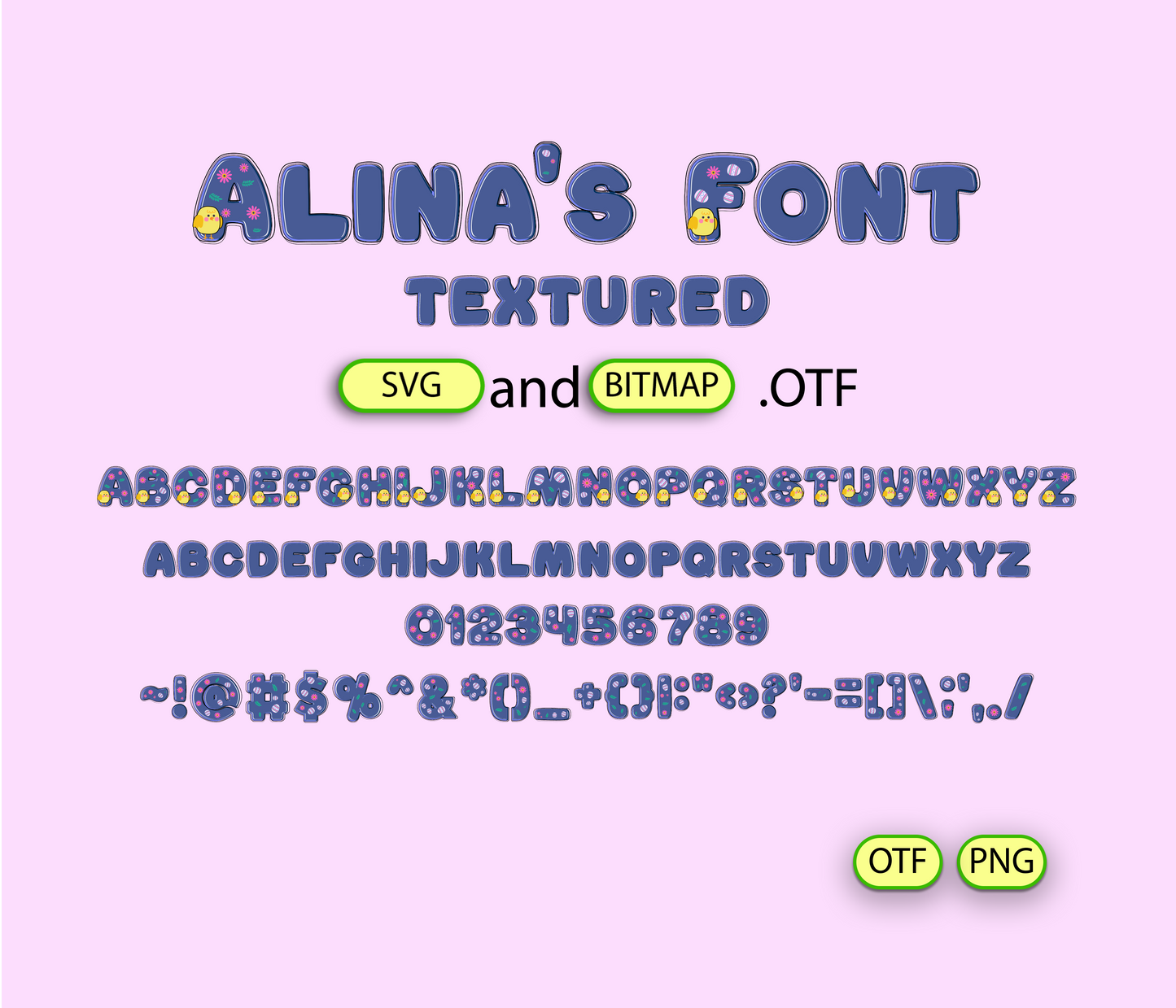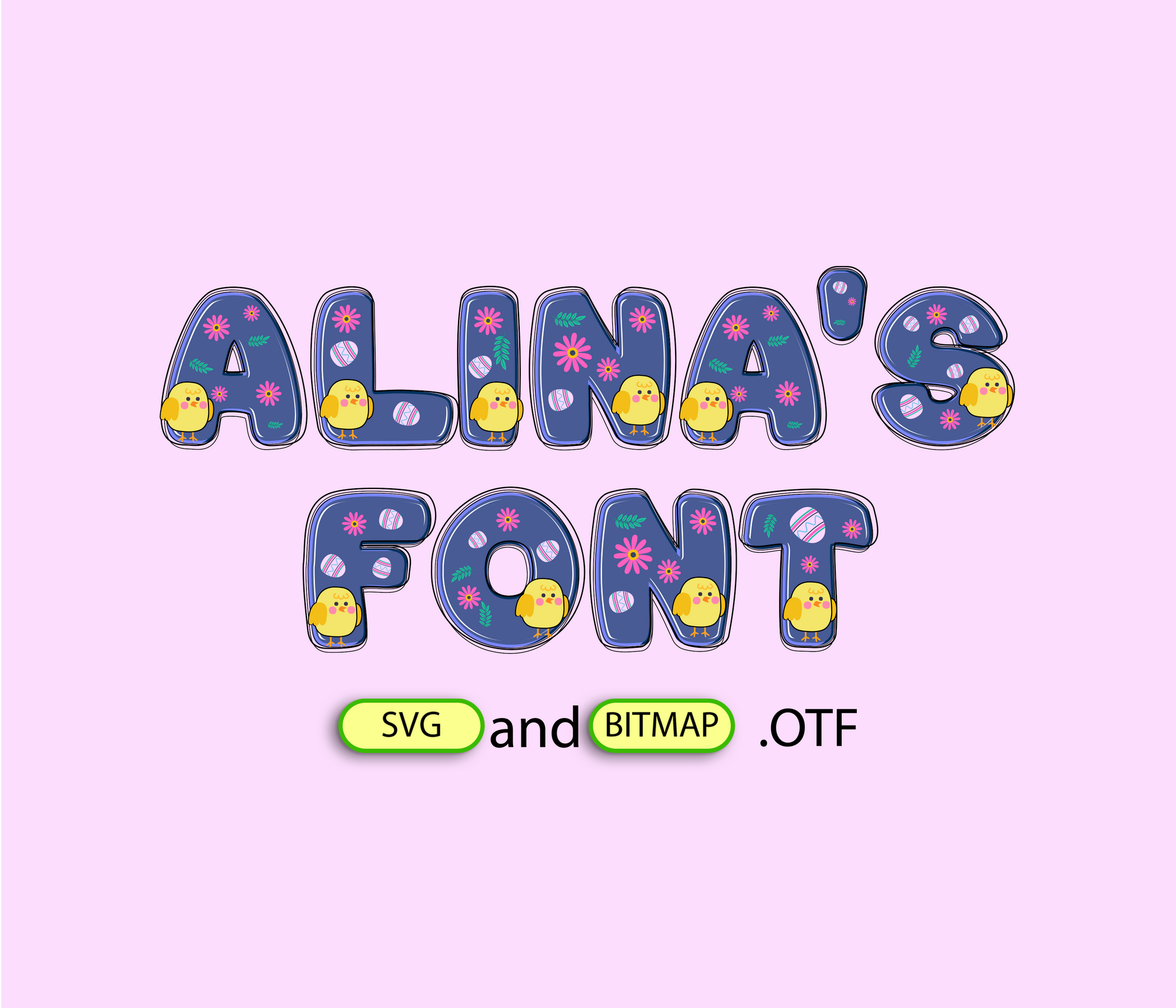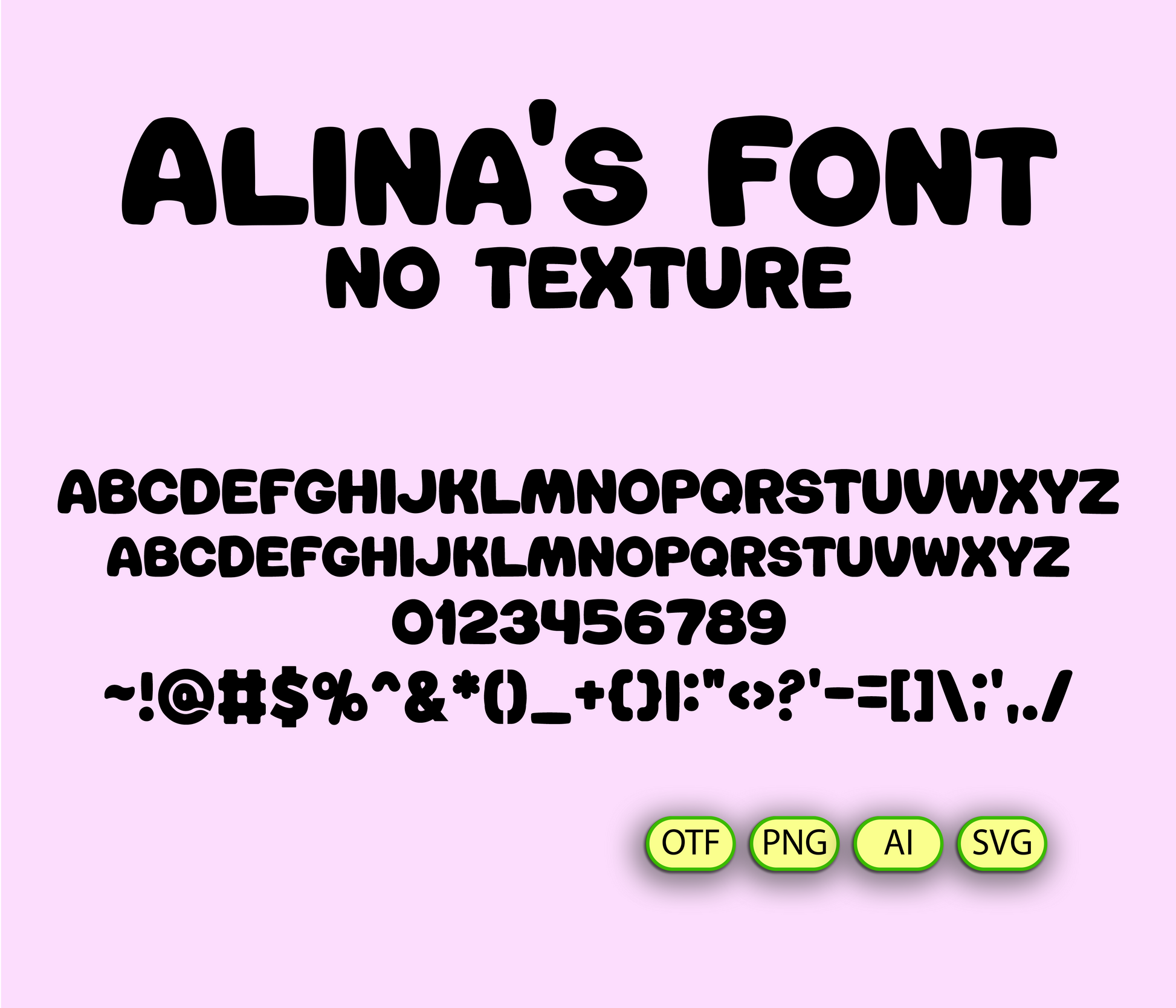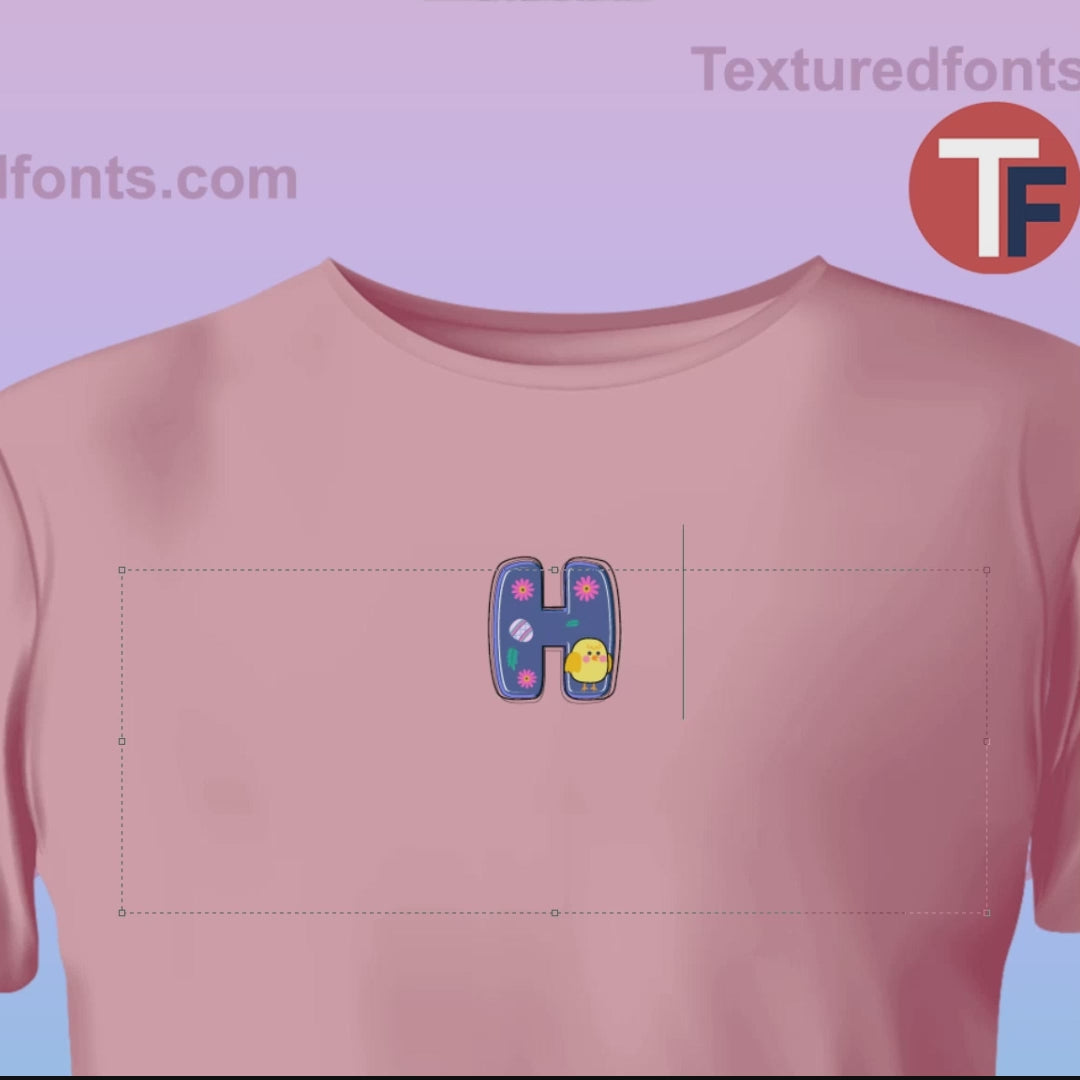
Easter Springtime Color Pattern Font
Easter Springtime Texture Color Pattern Font
Embrace the essence of spring with our Easter font, a delightful typeface crafted to capture the joy, renewal, and bright spirit of the Easter season. This font is inspired by the themes of new beginnings, vibrant Easter egg hunts, and the cheerful blossoms of spring, making it perfect for all your Easter-themed projects. Whether you're designing invitations for an Easter brunch, creating engaging content for social media, or personalizing greeting cards, the Easter font brings a touch of whimsy and freshness to your creations, mirroring the lively and hopeful atmosphere of this cherished time.
Optimized for use in Canva, the Easter font enables designers of all skill levels to effortlessly incorporate the charm and brightness of Easter into their digital designs. This font serves as a versatile tool for conveying messages of joy and celebration, ensuring that your Easter projects are both eye-catching and heartwarming, from digital banners to printed materials.
Understanding the varied needs of our community, we've included a no-texture version of the Easter font, guaranteeing seamless compatibility across all software and making it a flexible choice for a broad spectrum of applications. This adaptability ensures that the Easter font can be integrated into both your digital and print projects with ease, providing a polished and professional look suitable for any Easter occasion. Featuring a comprehensive character set and a user-friendly design, the Easter font is accessible to everyone, inviting users to infuse their projects with the spirit of the Easter season. Whether you're preparing for an Easter event, crafting personal messages to share with loved ones, or simply aiming to add a seasonal flair to your designs, our Easter font, complete with its no-texture variant, enriches your creations with the essence of spring and the joyful celebration of Easter.